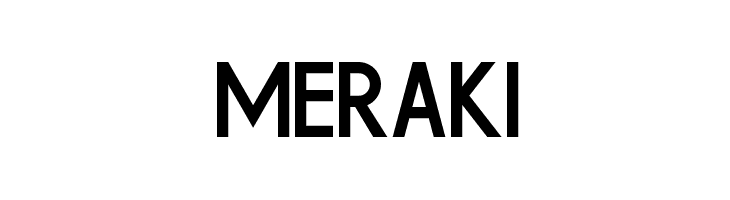
( Peter Olexa - www.dealjumbo.com )
A bold, industrial font with a distressed, grunge texture and angular design.
( Rachel San )
A modern, bold sans-serif font with geometric letterforms and balanced spacing.
( Rahmat Hidayat )
An elegant script font with flowing, interconnected letters and a calligraphic style.
( Richie Mx - Ricardo Saul Castellanos Pabello - www.facebook.com/rs.desiign )
An elegant, flowing script font with interconnected characters and ornate uppercase letters.
( Rifan Asri )
An elegant, flowing script font with ornate uppercase and cohesive lowercase letters.
( Ritvik Kar - graphicallycorrect.blogspot.com )
A lively, handwritten-style font with dynamic strokes and artistic flair.
( Roland Huse Design - Roland Huse - rolandhuse.com )
A flowing, cursive script font with elegant, interconnected letters.
( Ryan Prasetya - creativemarket.com/lostvoltype )
A bold, gothic-inspired typeface with sharp, angular edges.
( Sabrtype - creativemarket.com/Sabrtype )
A cursive, handwritten font with elegant, flowing strokes and medium contrast.
( Sengkeo Vangxiengvue - www.facebook.com/vangxiengvue )
A bold, modern font with rounded and straight edges, perfect for contemporary designs.